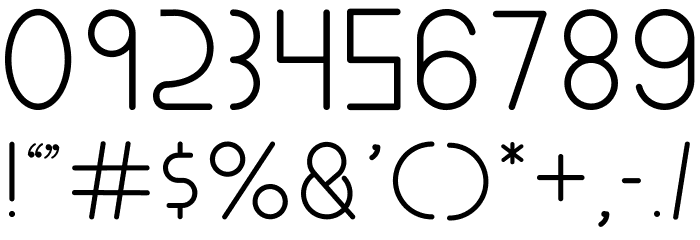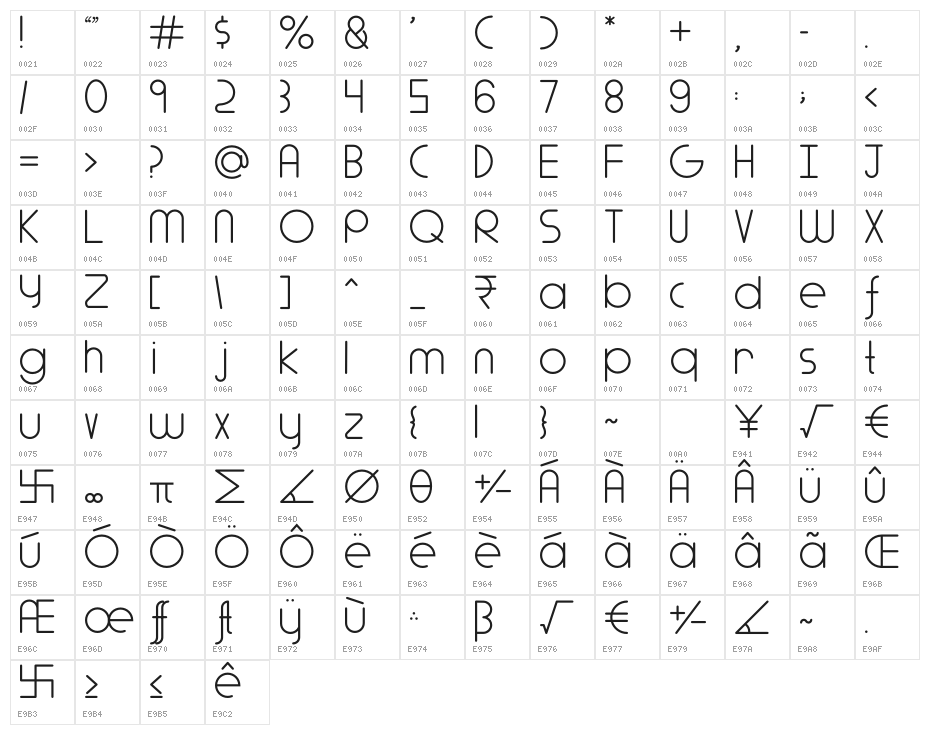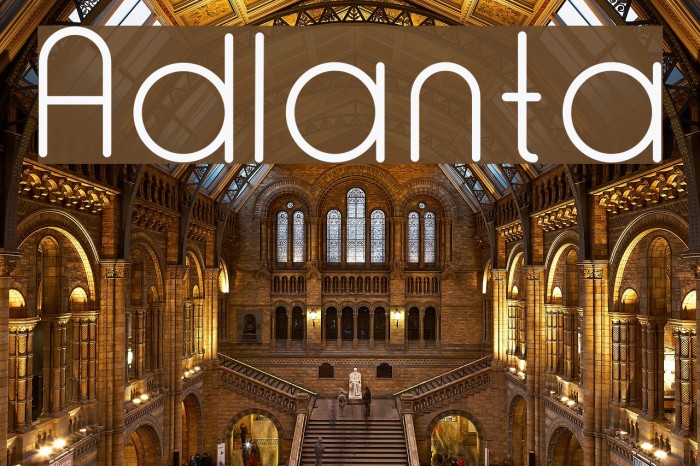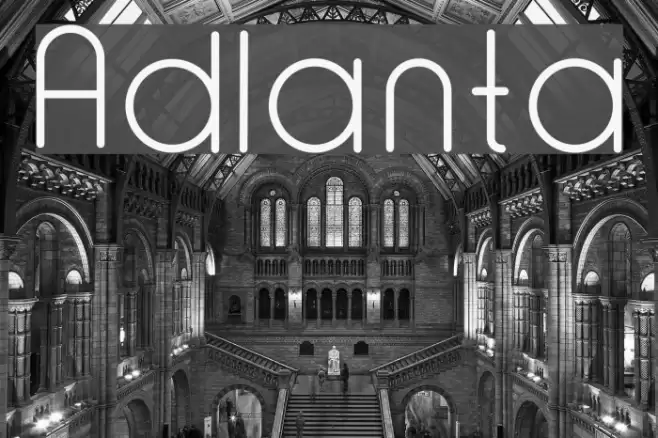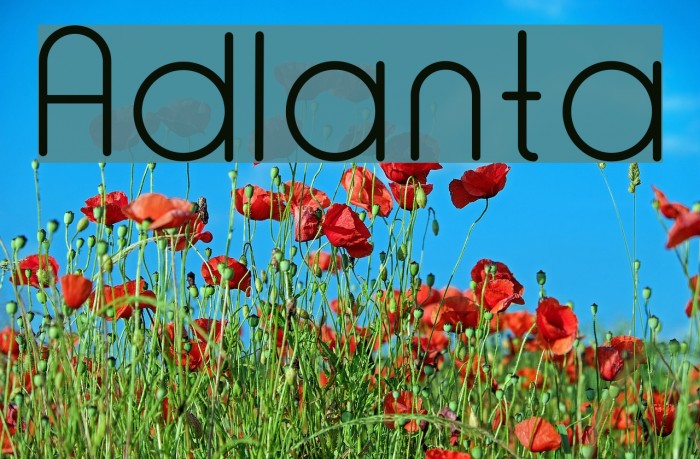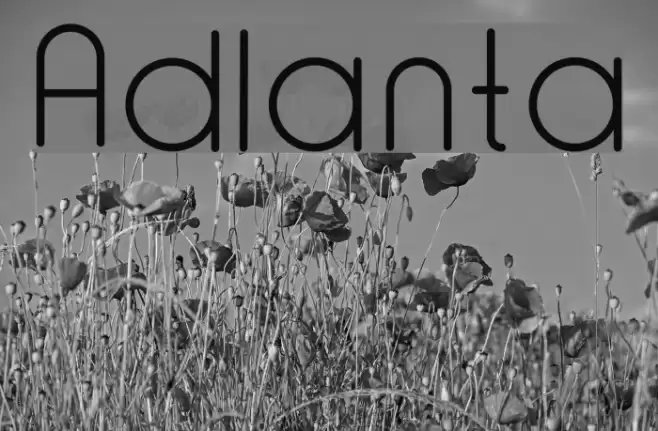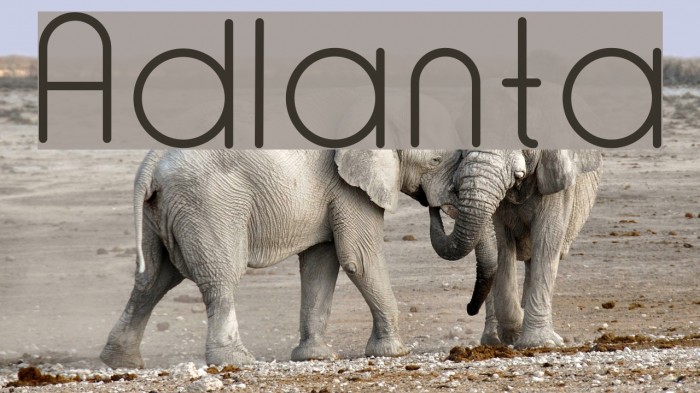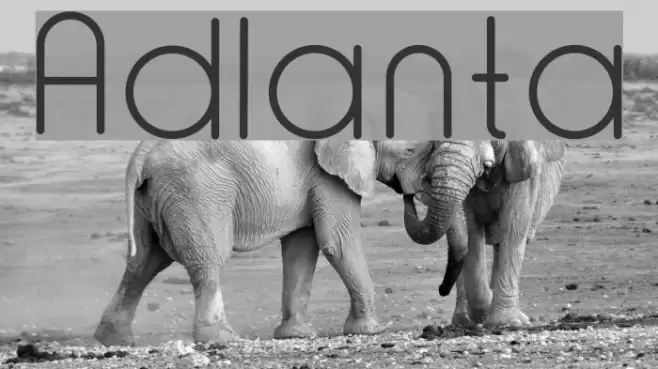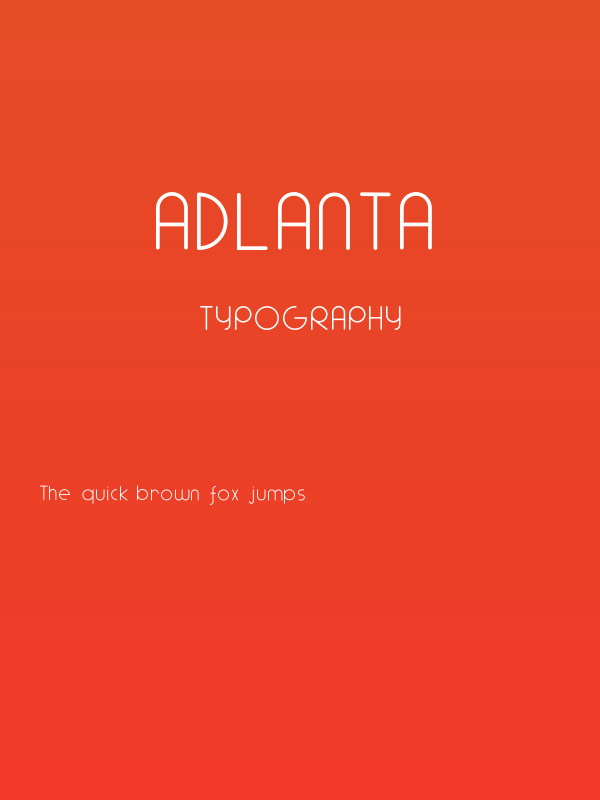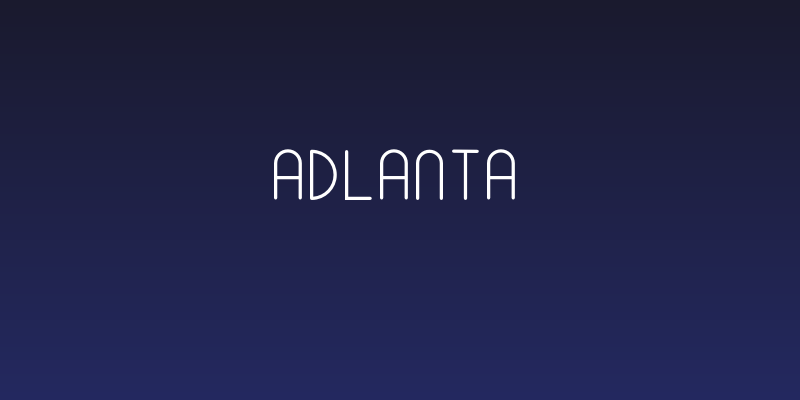
Adlanta Font
Adlanta Description
This font features a clean and modern sans-serif style with rounded edges, giving it a friendly and approachable appearance. The uniform stroke width and geometric shapes create a harmonious and balanced look, making it versatile for various design applications. The characters are well-spaced, contributing to its readability and legibility. The numerals and special characters maintain the same geometric consistency, ensuring a cohesive visual experience across different text elements.
| Proposed Projects | Ideal for branding, digital interfaces, signage, and editorial design where a modern and approachable aesthetic is desired. |